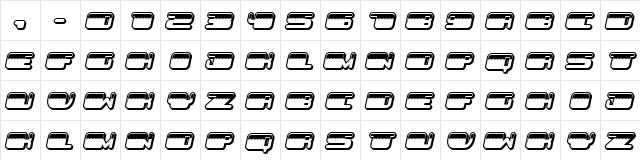
Patriotic No Stars Inverted Italic
Design Context for Patriotic No Stars Inverted Typeface
Patriotic No Stars Inverted is a composed and adaptable typeface that performs quietly and consistently across a wide range of design contexts. The dynamic lean of this cut emphasises speed and emphasis in any layout.